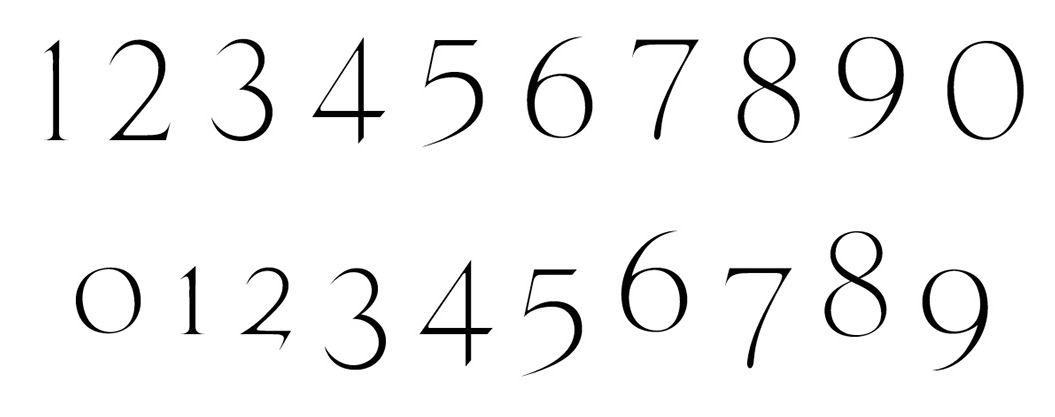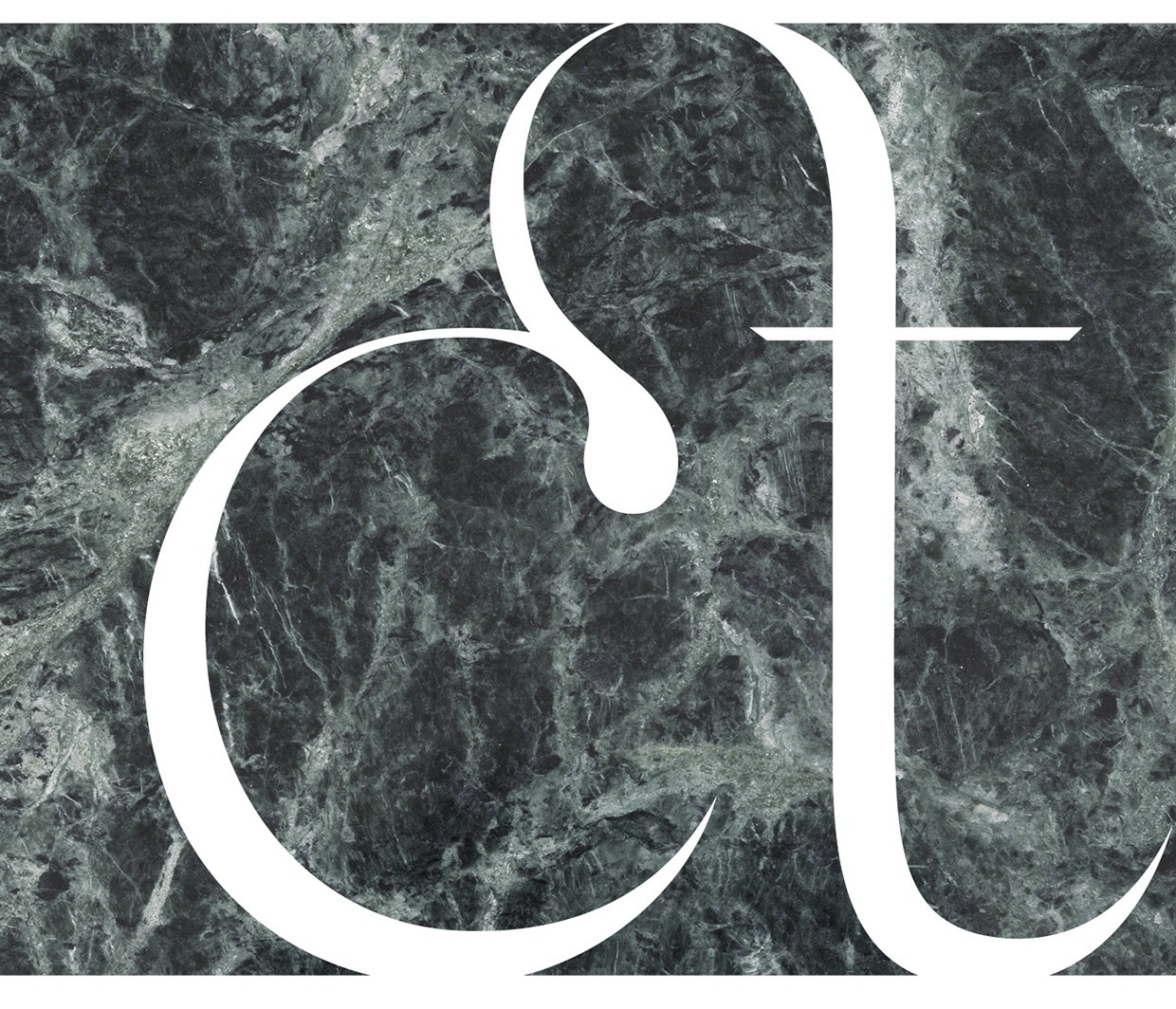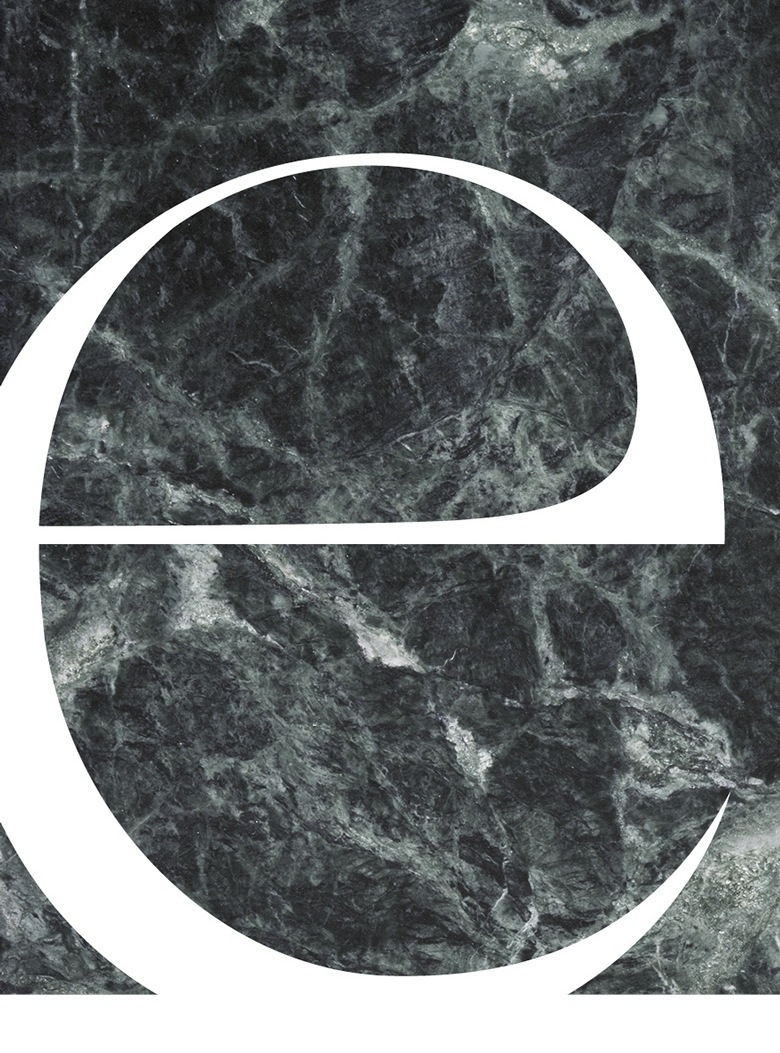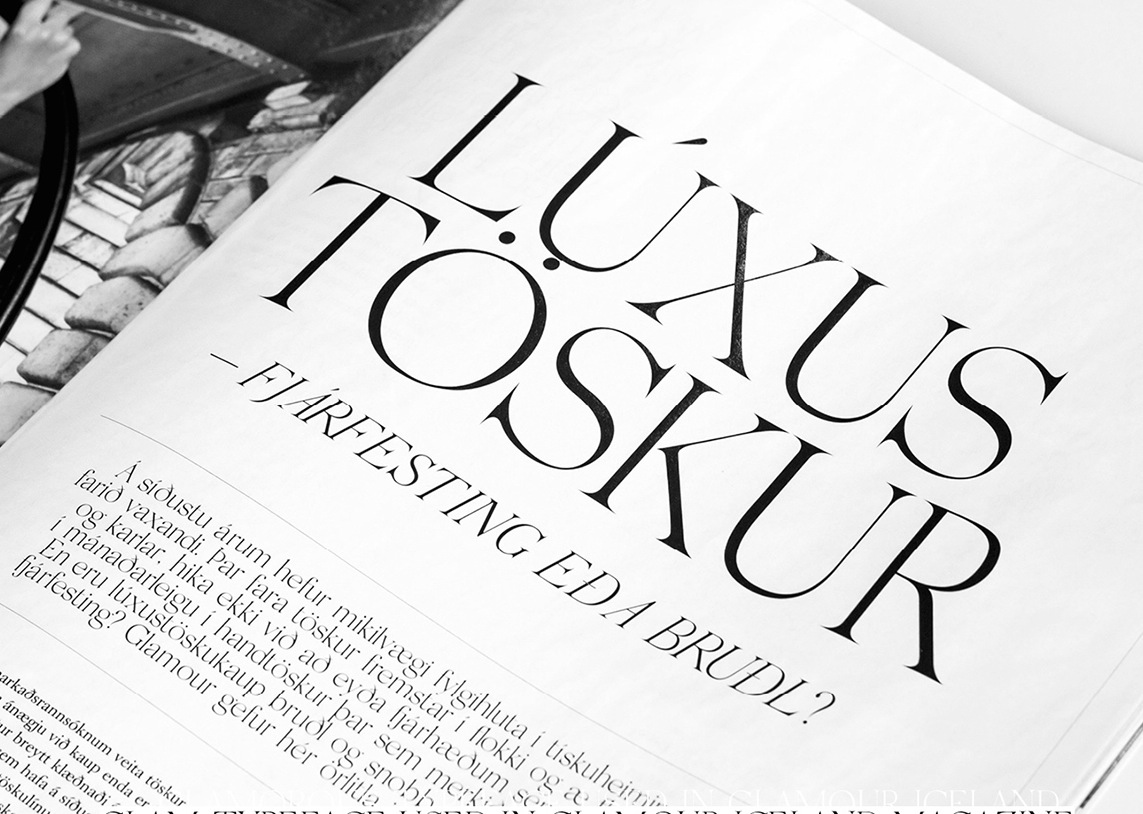
Rakel Thomas
Graphic designer in Reykjavik, Iceland, who works for Glamour Iceland and Condé Nast. In 2015, she created the high-contrast fashion magazine typeface Glam, which is used in Glamour Iceland Magazine. Behance link. |